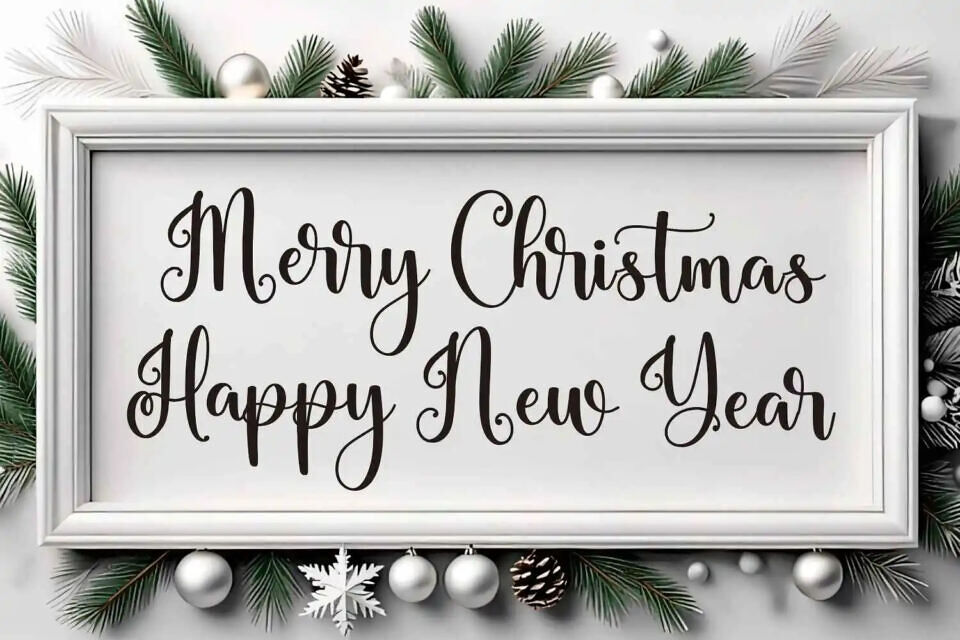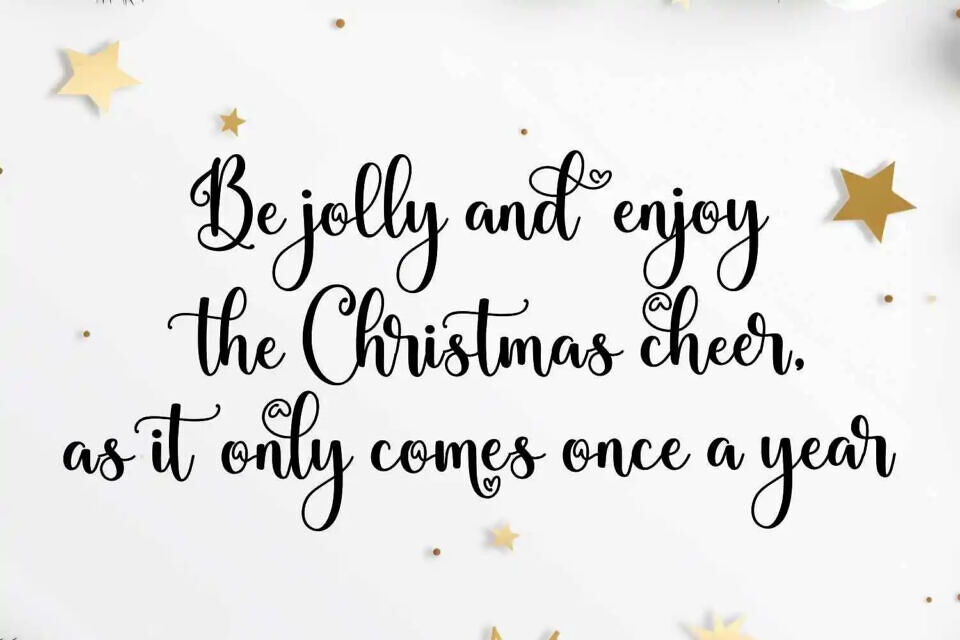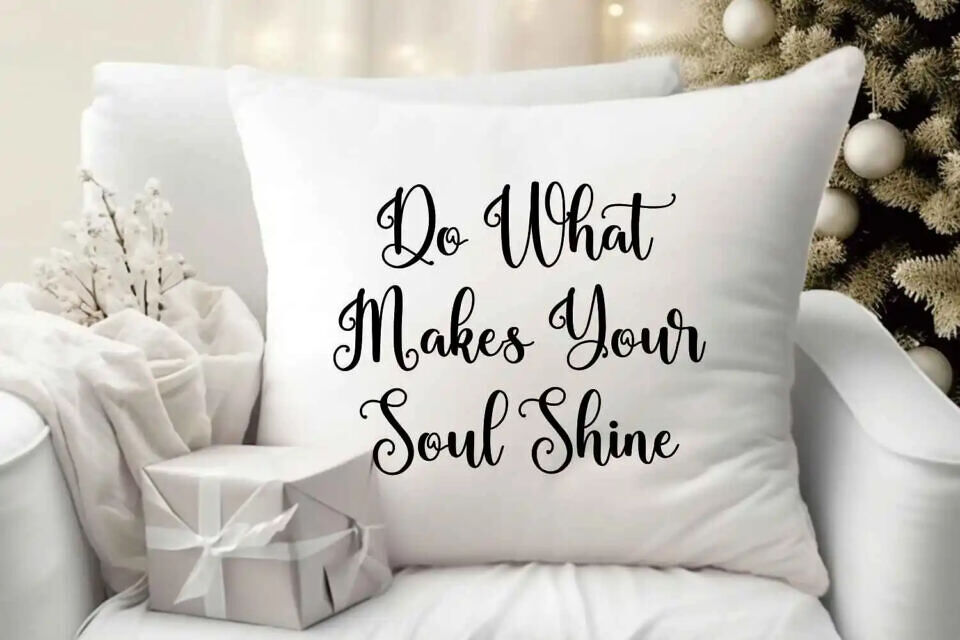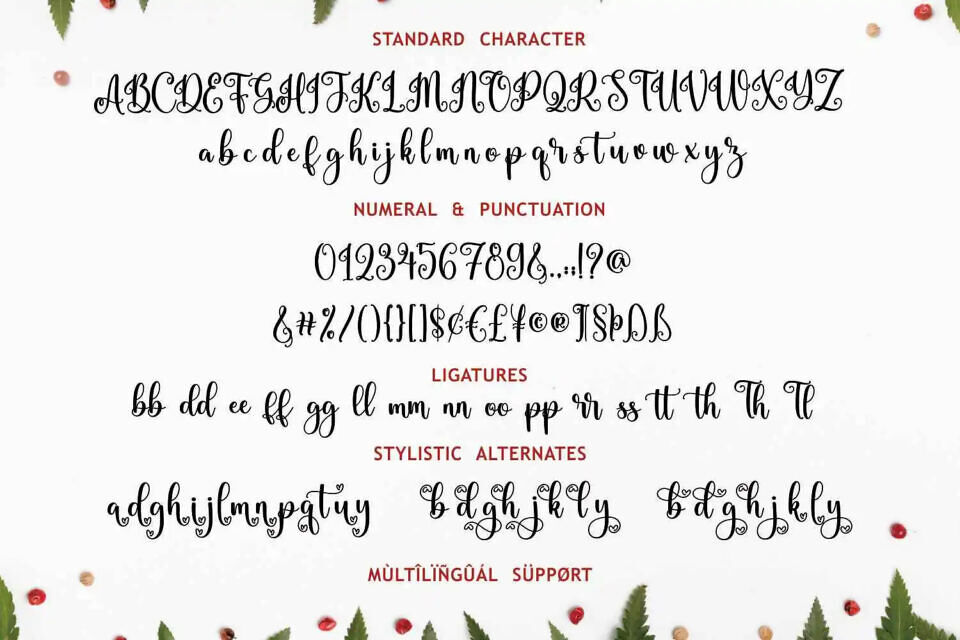
Introducing Christmas Holiday font, the quintessential script handwritten font that encapsulates the essence of festive celebrations!
With its elegant strokes and charming curves, this font is perfect for adding a touch of warmth and joy to your Easter, Thanksgiving, and Christmas-themed projects. Whether you’re crafting greeting cards, creating intricate embroidery designs, or embellishing your Cricut creations, Christmas Holidayfont is your go-to choice for infusing your creations with holiday cheer.